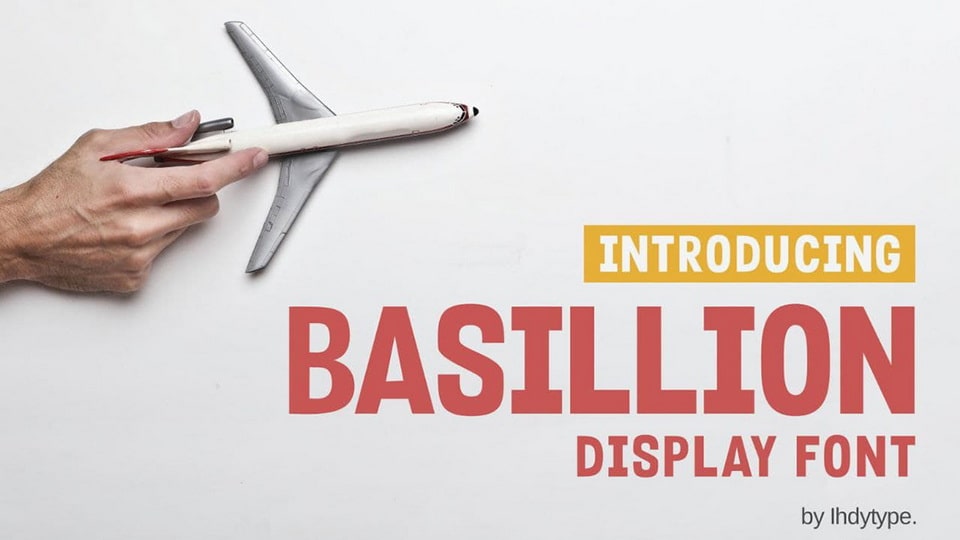
Download Basillion font, a bold all caps display typeface. With its simple and functional look Basillion font is perfect for titles, headlines, posters, large-scale designs and signage.
Designer: Ihsan Rusydy